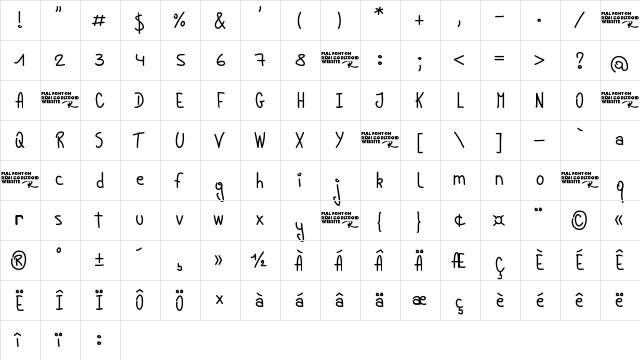
Young Lines Regular
| Foundry | Rέi Godefroid |
| Designer | Rέi Godefroid |
Design Context for Young Lines Typeface
Young Lines offers clean, dependable letterforms without strong stylistic allegiance, making it a practical choice for designers who need flexibility.